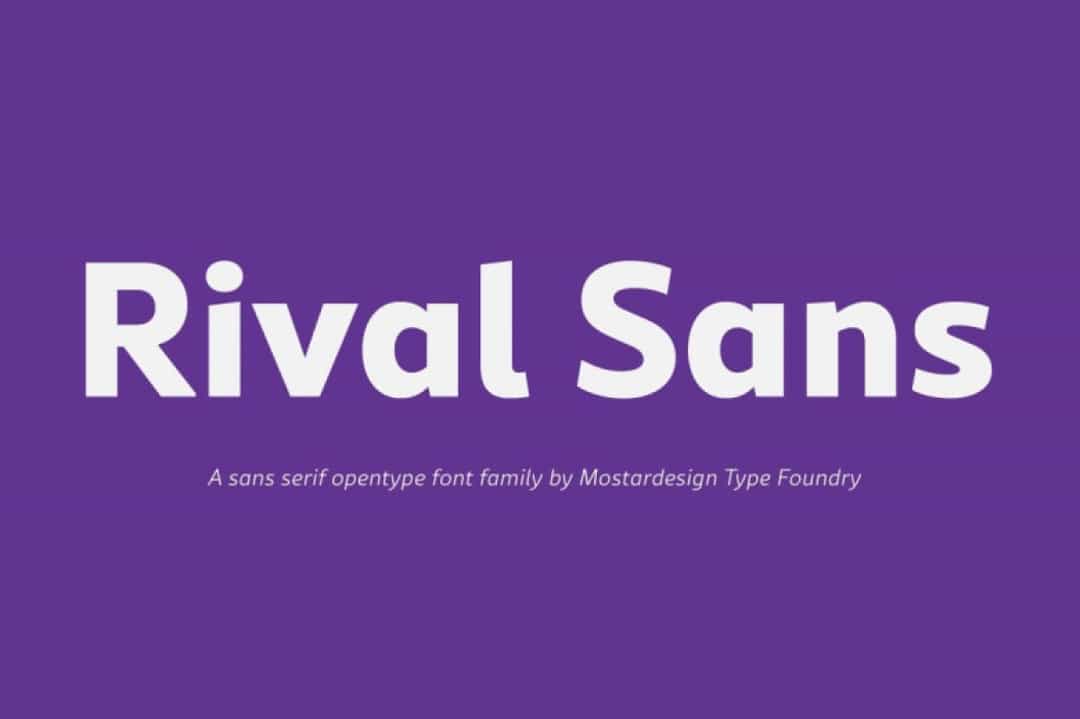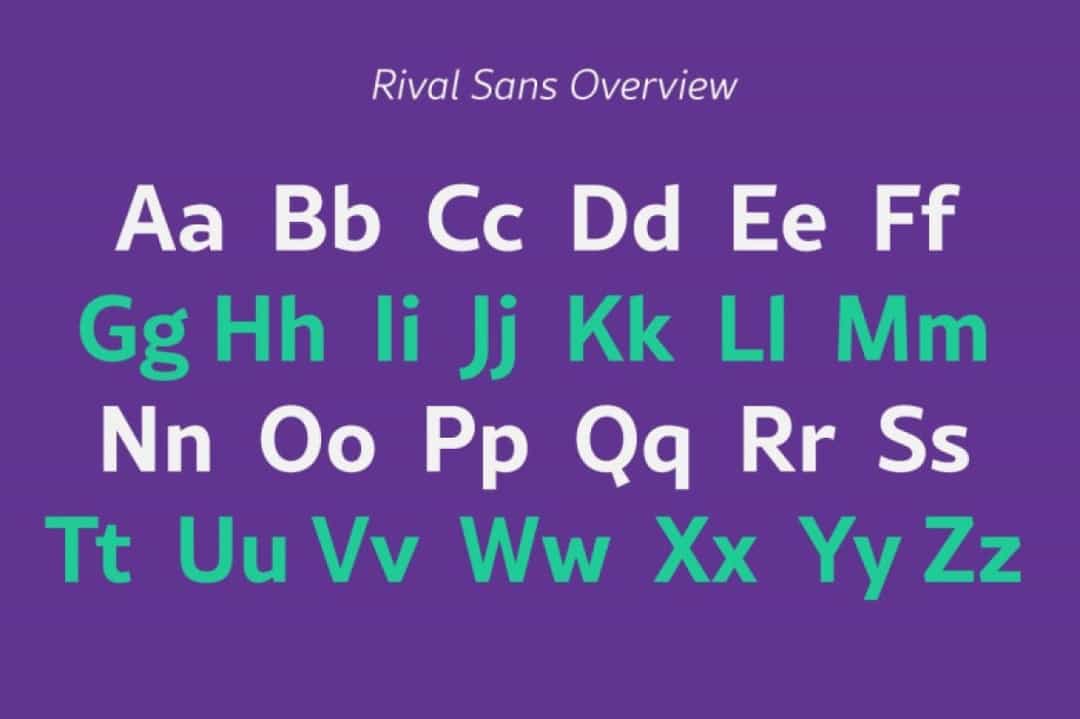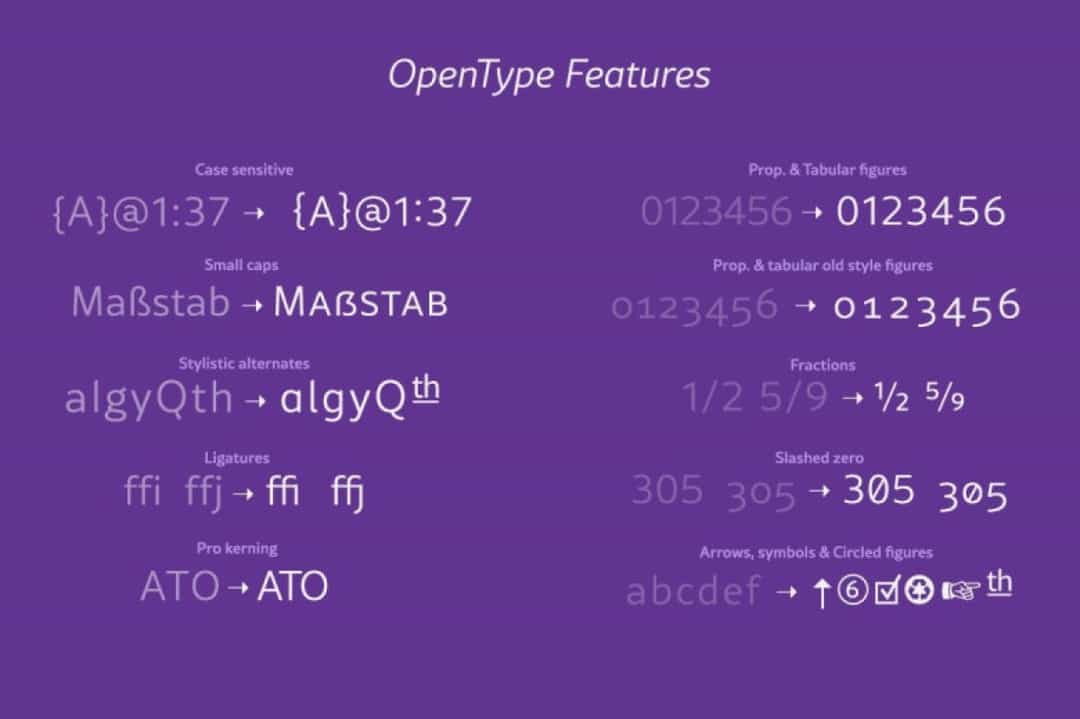
Rival Sans is a simple sans serif font family, distinguished by its exceptional reading ability and contemporary look. This font offers advanced typographical support such as cases sensitive forms including tiny caps, ligatures alternative characters fractions cut zero circles as well as professional kerning.